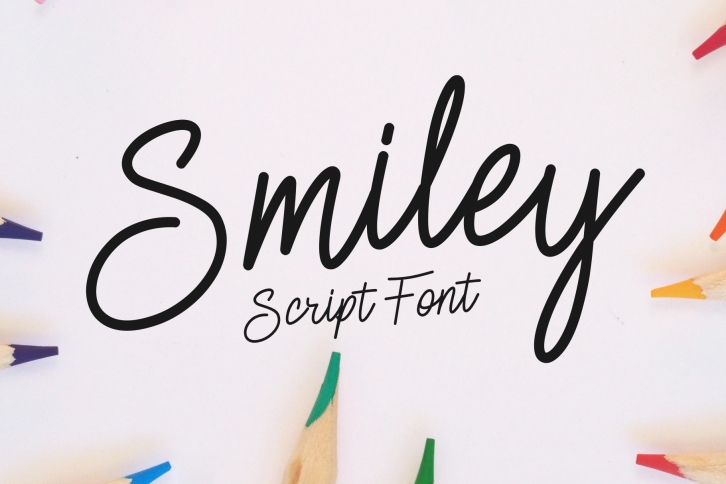
Smiley | Monoline Script FONT Download
Smiley | Monoline Script Font Download
Smiley is a great font that was designed by windestrian. Imagine the amount of combinations you can create using this font! The archive is 12.11 MB and it was released on July 14, 2019. Smiley looks beautiful on wedding invitations, greeting cards, logos, posters, labels, t-shirt designs, logos, business cards and is perfect for use in ink or watercolor works, fashion, magazines, packaging and food menus, children's books and more!